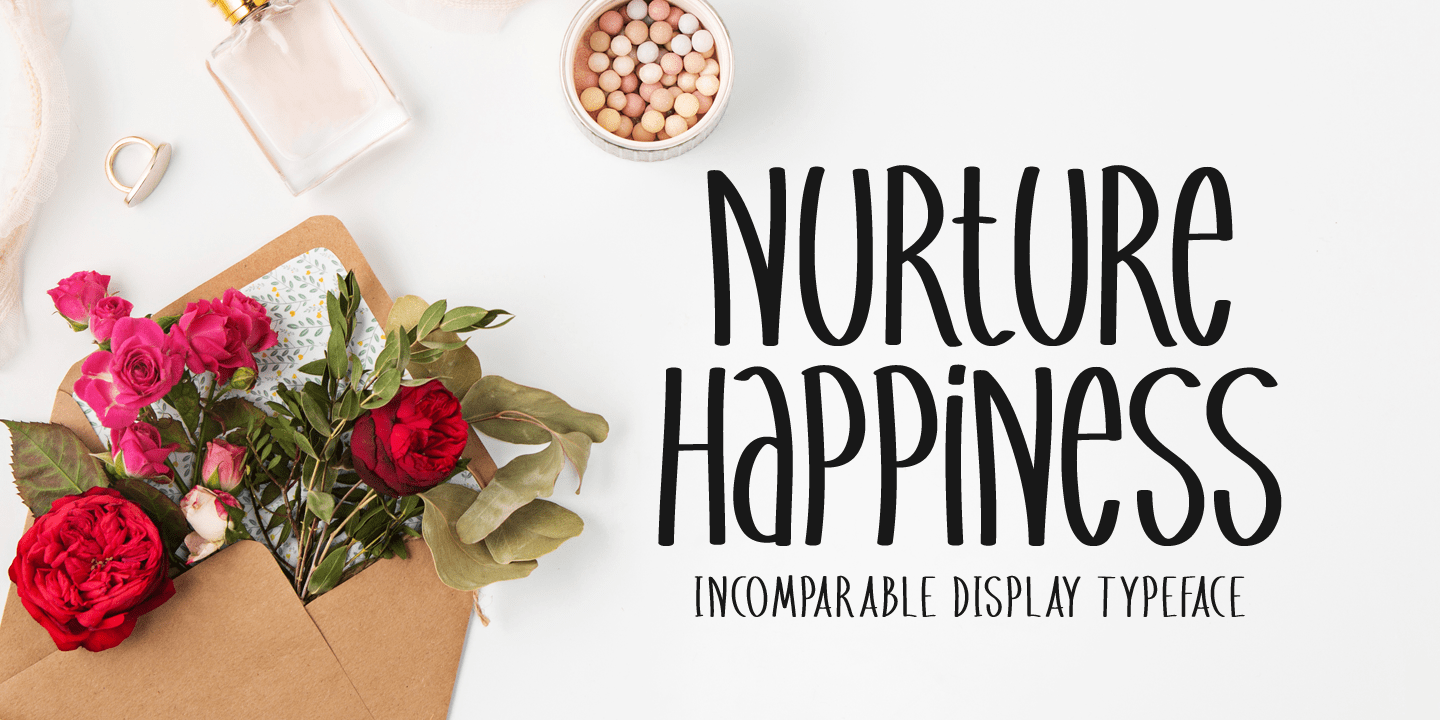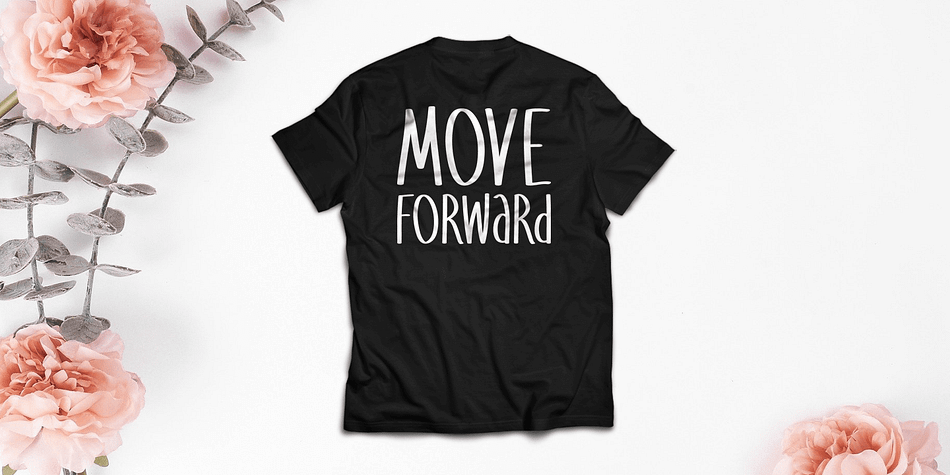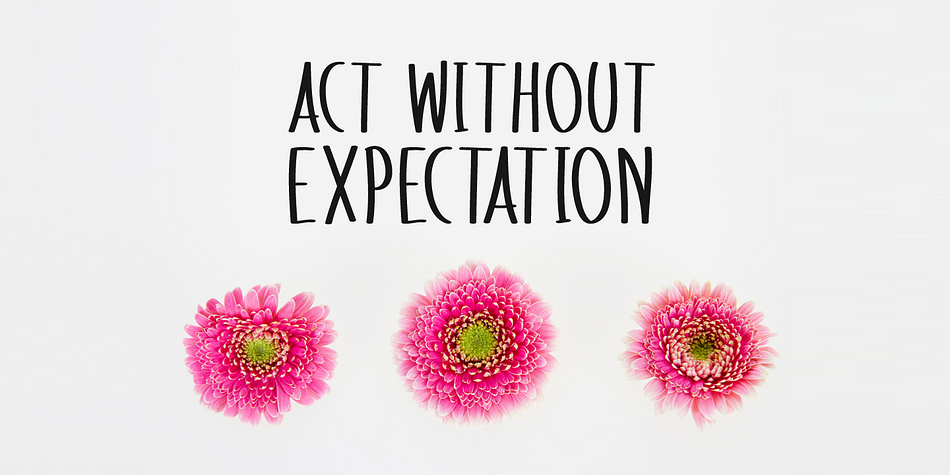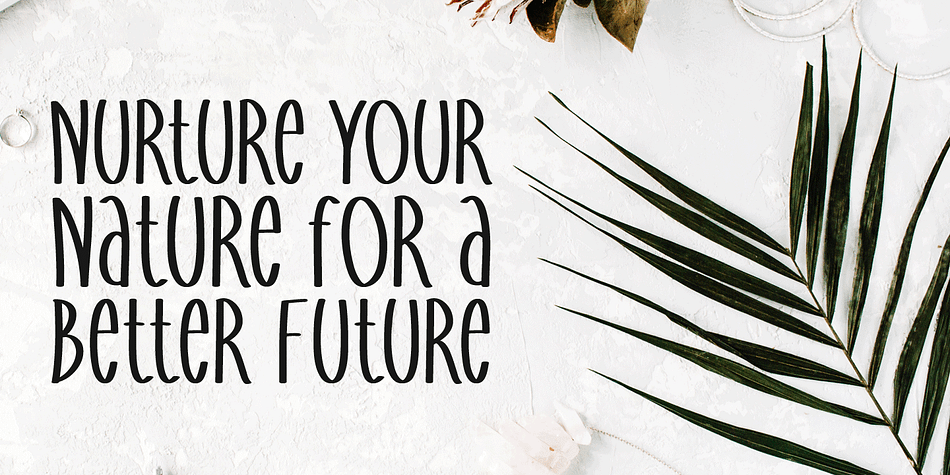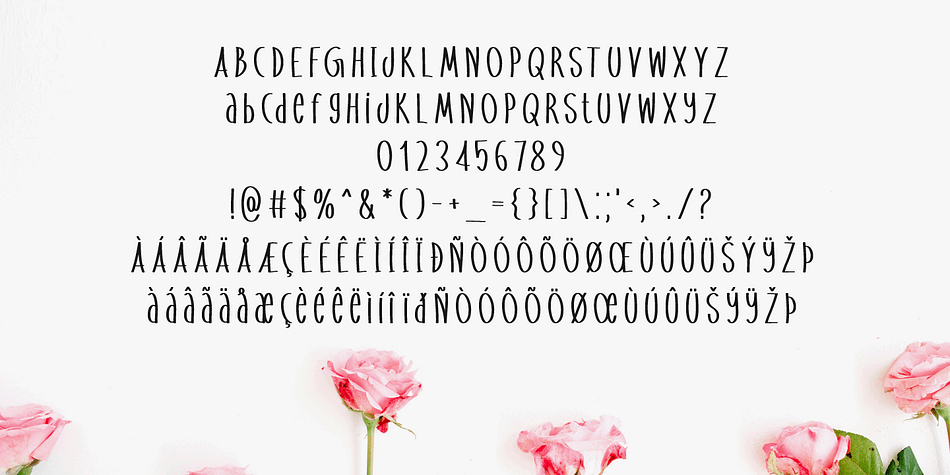
Nurture Happiness
Designed by Md. Shohail Bhuiyan, Nurture Happiness is a hand display and script font published by Seemly Fonts.
Nurture Happiness is a tall, adaptable, and smart-looking display font. Add it to each of your party invitations, gathering, or pretty much any design that requires a touch of youth and joy.